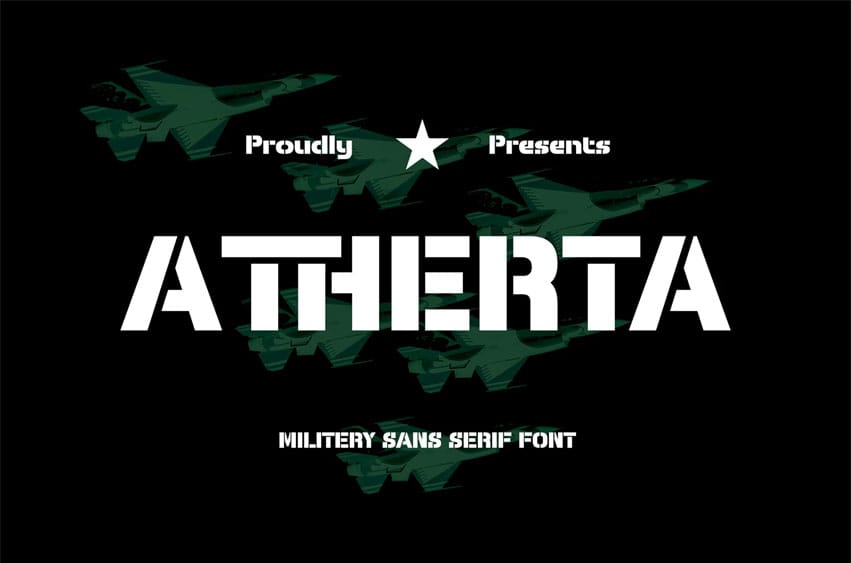
Atherta Font is a bold and rugged stencil typeface inspired by military aesthetics. Perfect for posters, games, apparel, and branding that need a strong and commanding look.